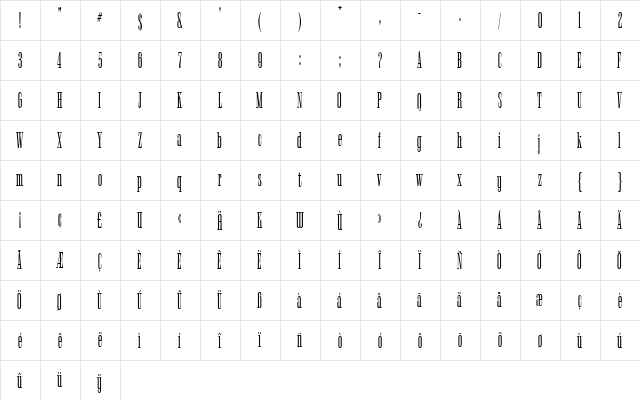
Goldwater Regular
| Foundry | Copr. Panache Graphics Limited . Goldwater is a Trademark of Panache Graphics Limited |
| Year | 1987 |
Design Context for Goldwater Typeface
Goldwater takes a measured approach to typography — its balanced proportions and neutral character make it a reliable workhorse for both digital and print work.